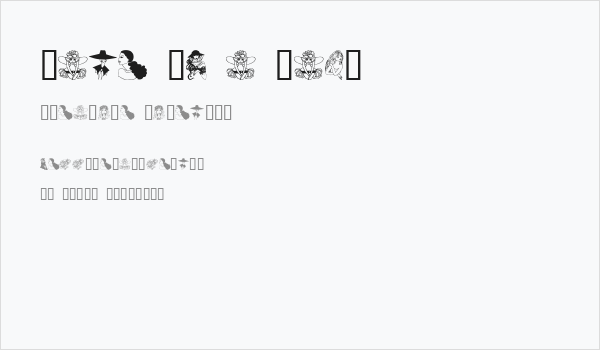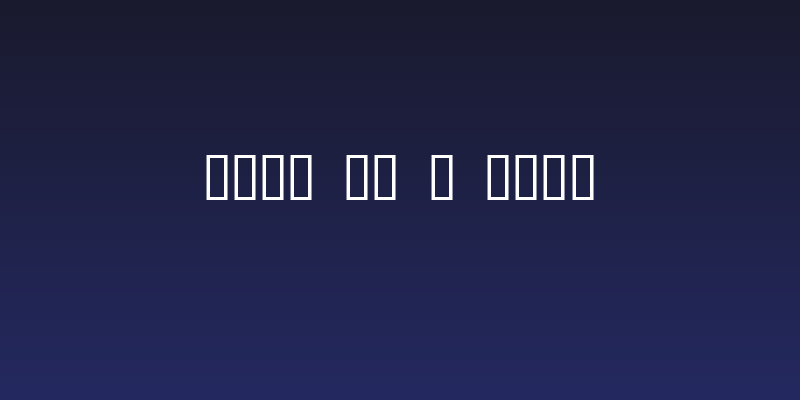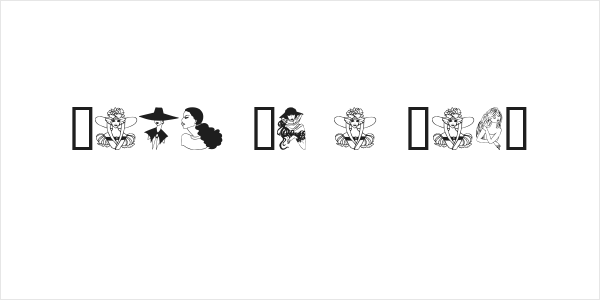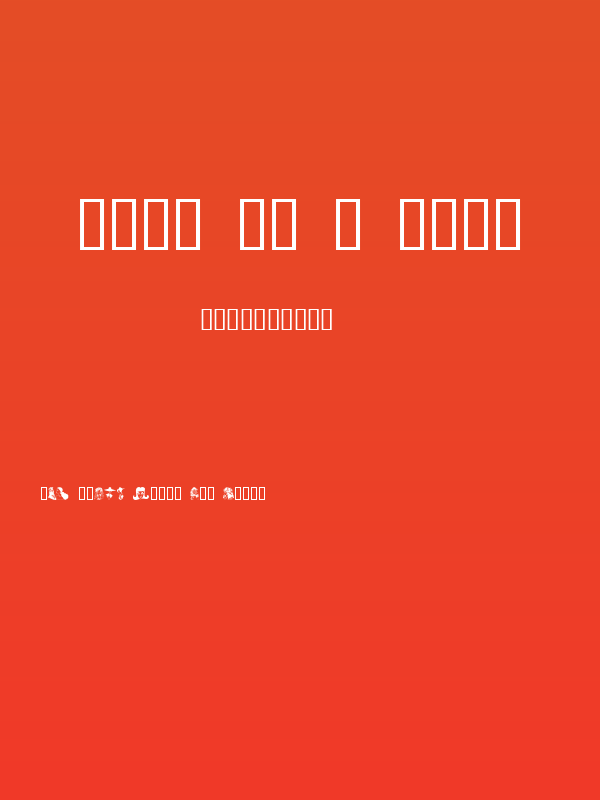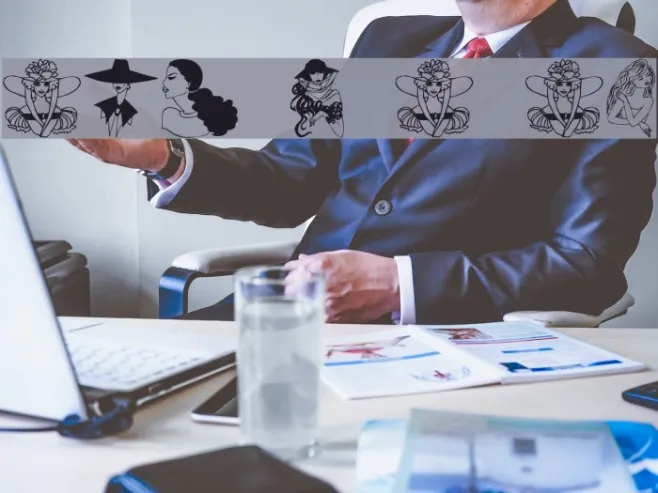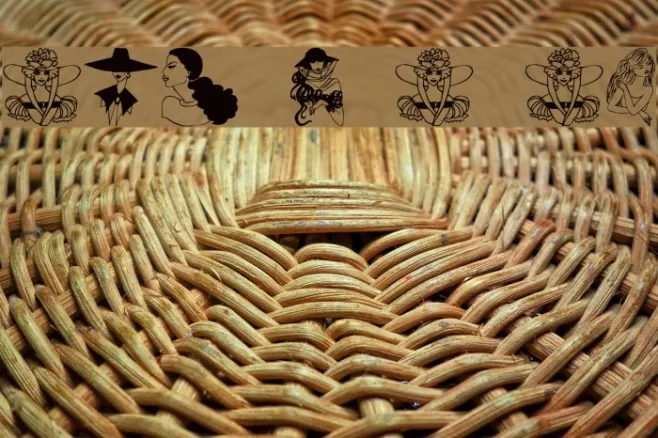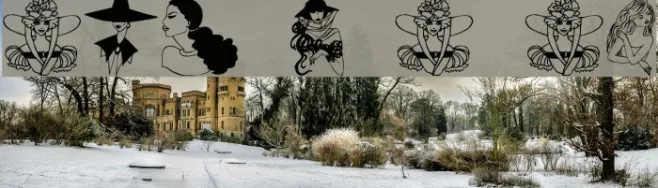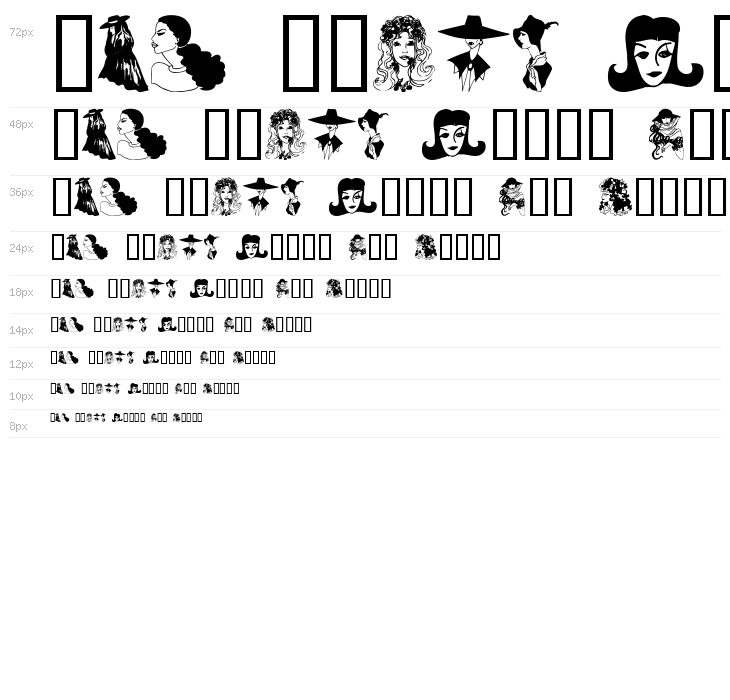
Face of a Lady Font
Face of a Lady Description
A decorative font featuring detailed black and white illustrations of women's faces and headshots, each glyph uniquely styled with various hairstyles, hats, and expressions. The designs are intricate and artistic, focusing on feminine portraiture rather than traditional alphanumeric characters.
| Overall Style | Decorative, Artistic, Feminine |
| Use Case | Logos, Decorative elements, Posters, Invitations |
| Proposed Projects | Greeting cards, posters, fashion branding, editorial design, decorative headings, and themed event invitations. |